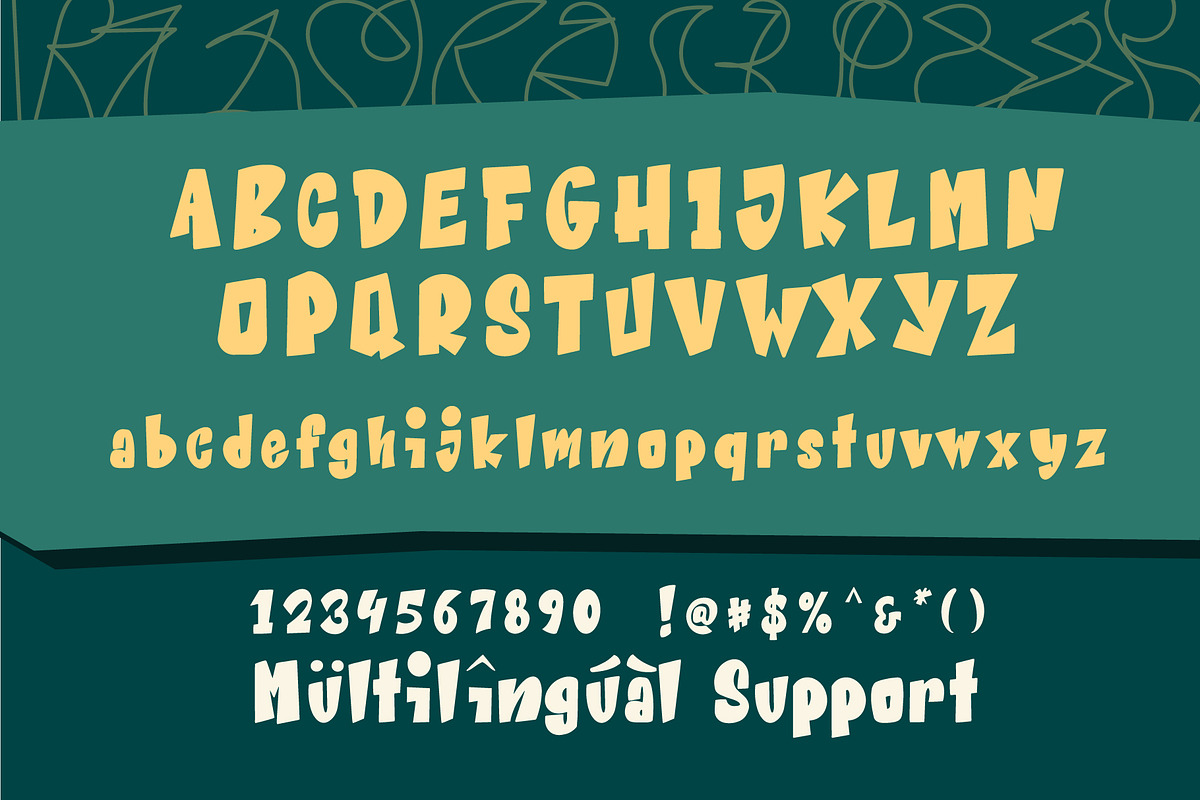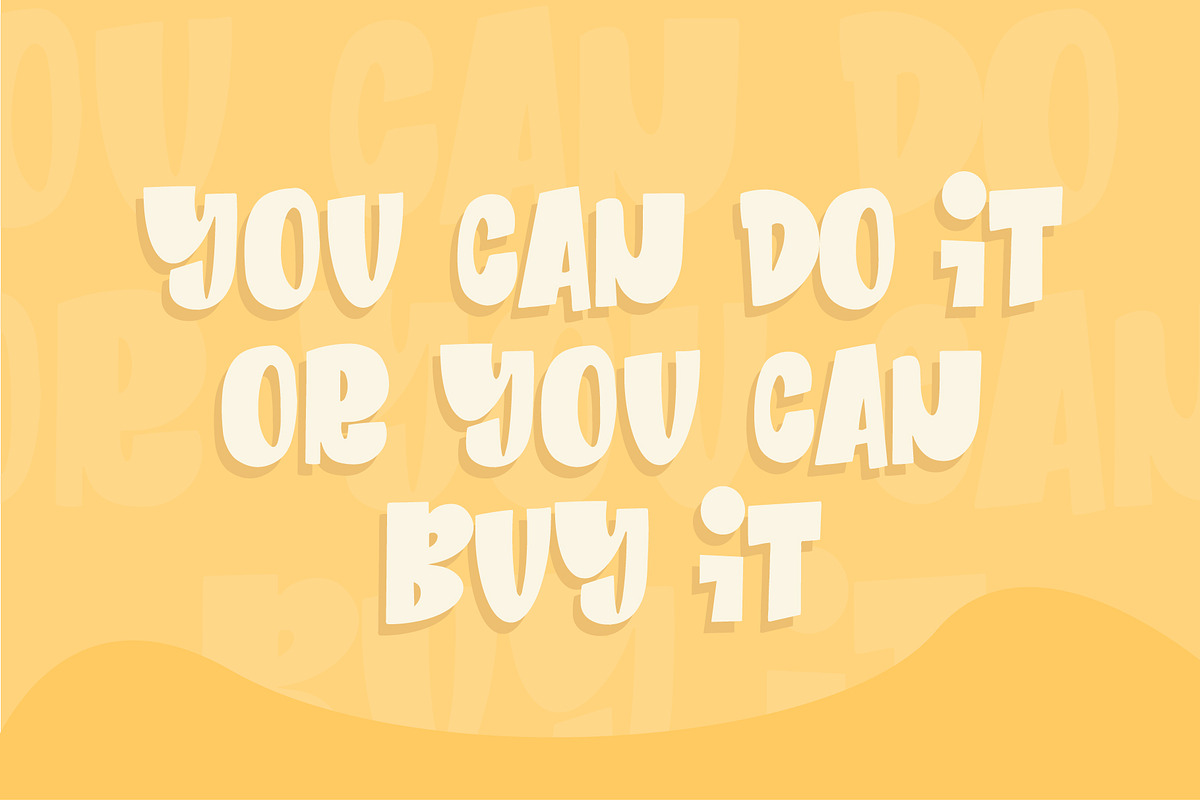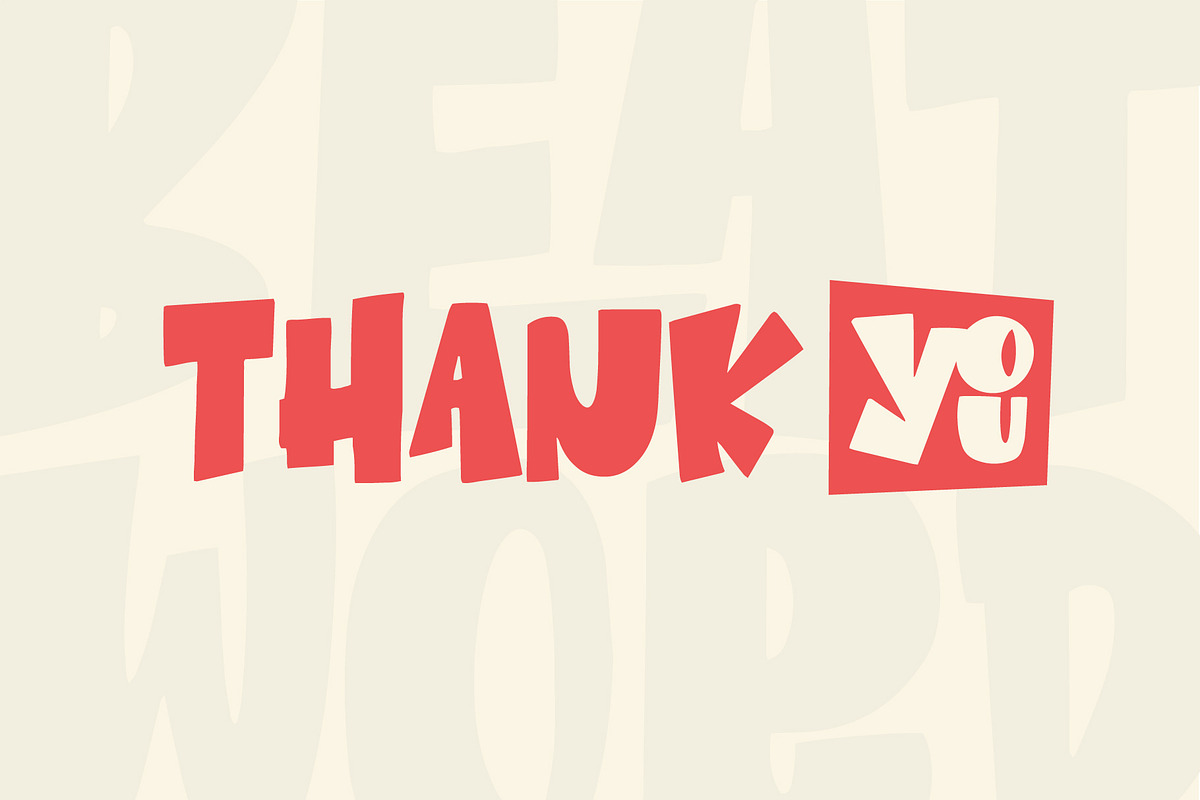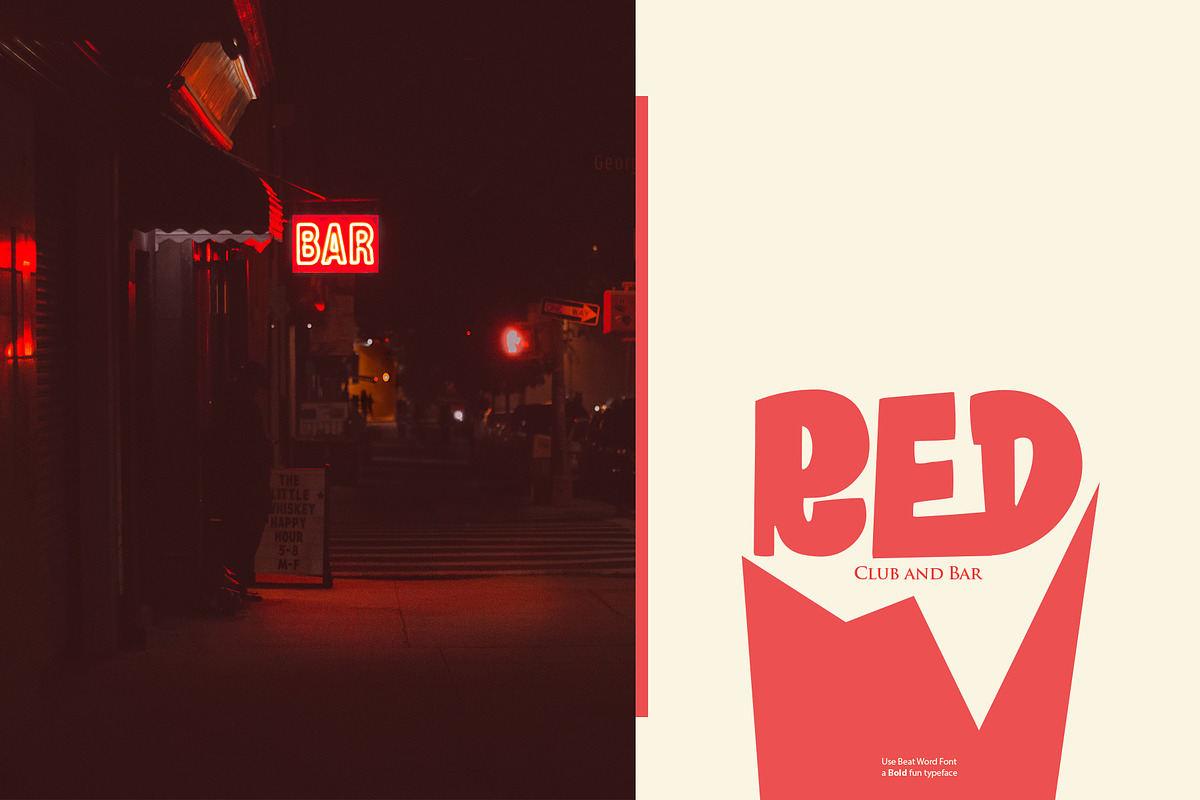
Beat Word | A BOLD fun Display
Beat Word is our newest product, a very fun font to use mixed with alternate and ligature and make your work really fun. This font is suitable for logos, product displays, fun branding, t shirts, broadcast animations and other fun work :)
Beat Word is a very powerful font with a fun alternates and ligature.
- 3 font style [ Regular, Italic and Outline (Bonus Version*) ]
- Alternates and Ligature
- UPPERCASE and lowercase style
- Panctuation and numeral